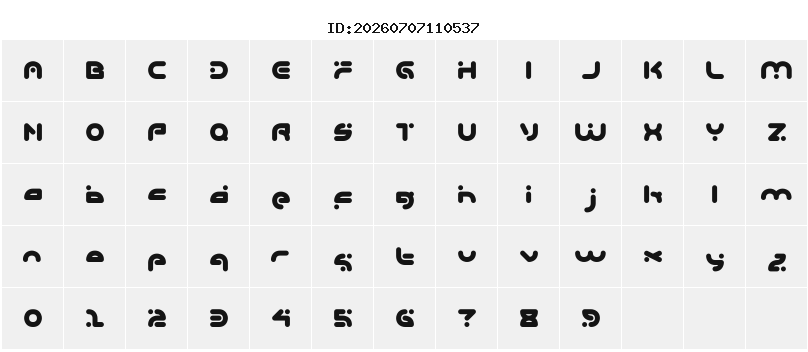
About DeliciousRegular.ttf
DeliciousRegular.ttf is a modern, elegant sans-serif font designed for ultimate readability and visual harmony. Perfect for branding, headlines, web design, and print materials.